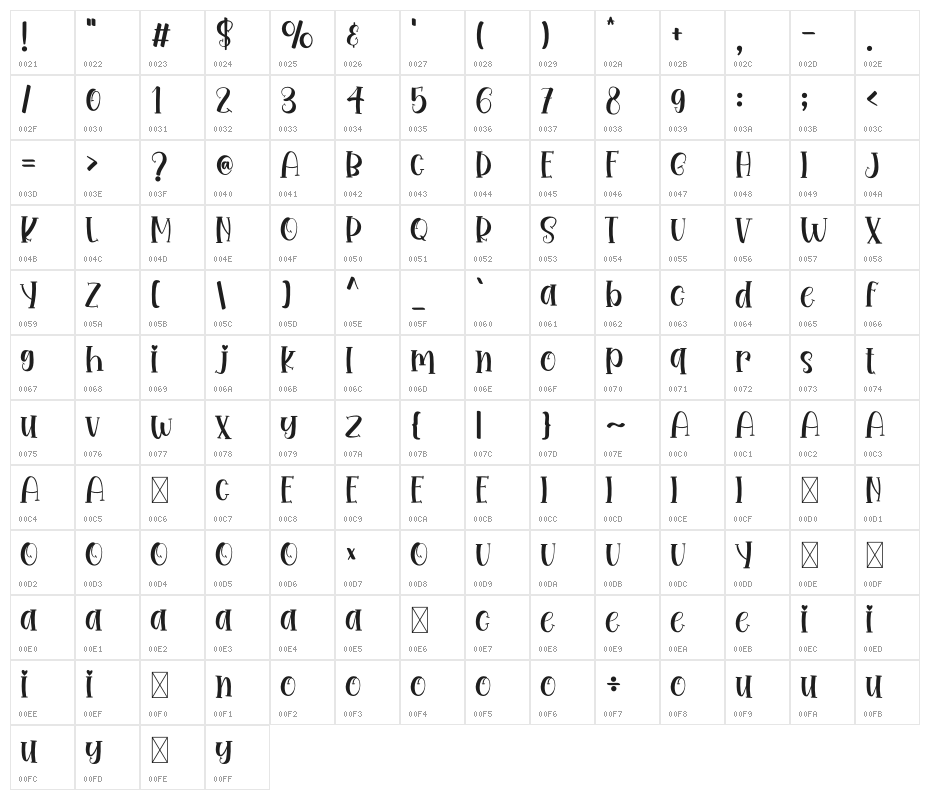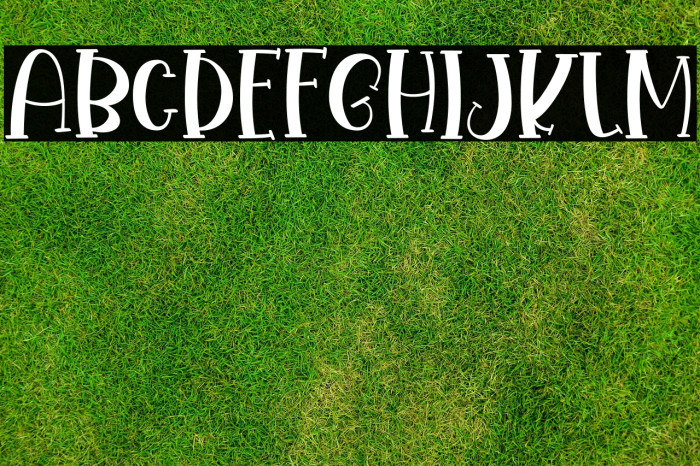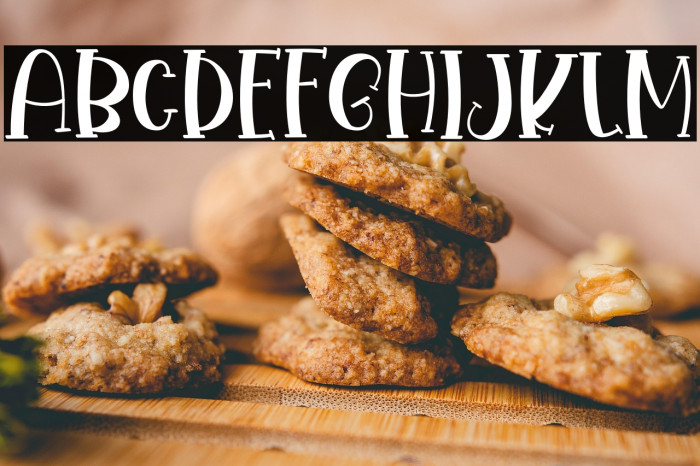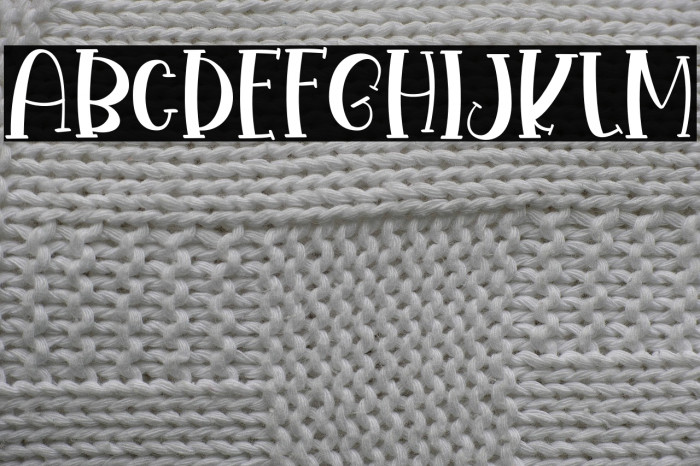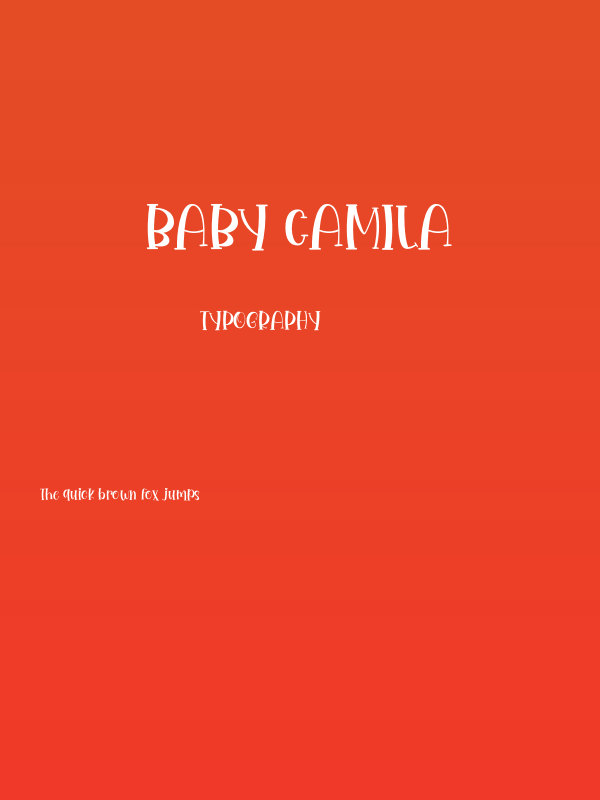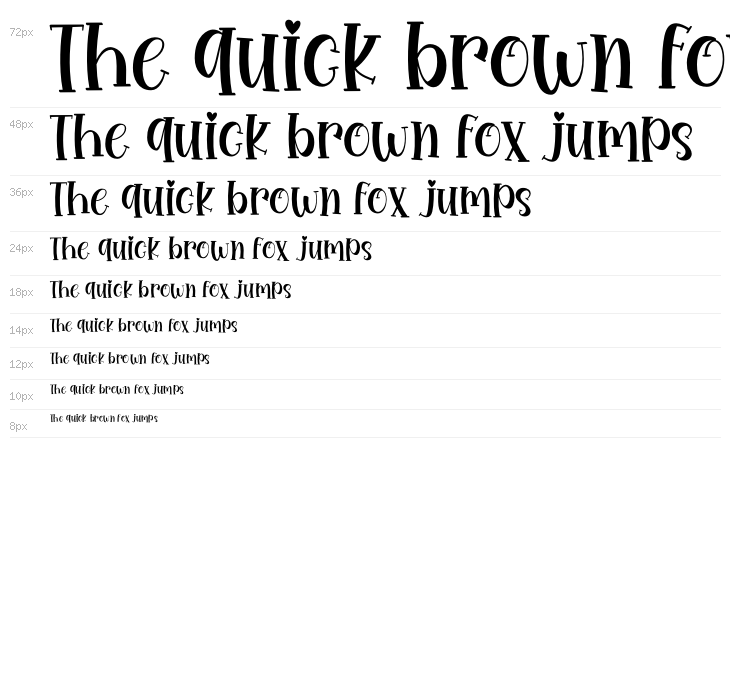
Baby Camila Font
Baby Camila Description
A playful and whimsical font with decorative elements, featuring heart shapes and curls in the characters.
| Overall Style | Whimsical and playful |
| Proposed Projects | Children's books, greeting cards, playful branding. |